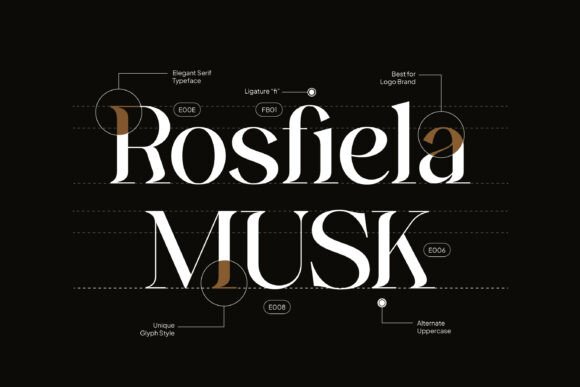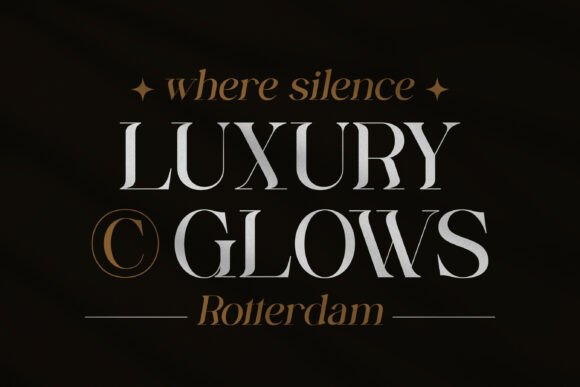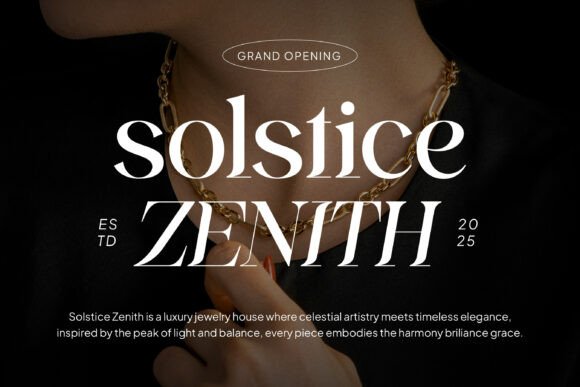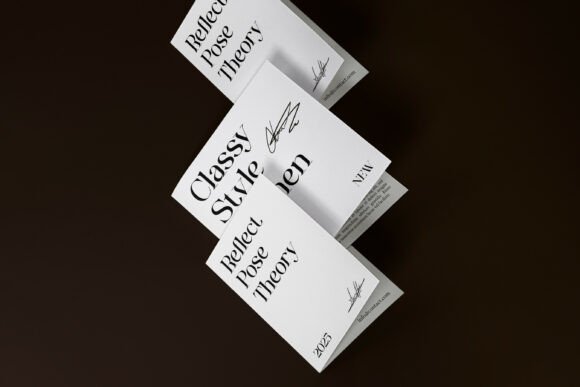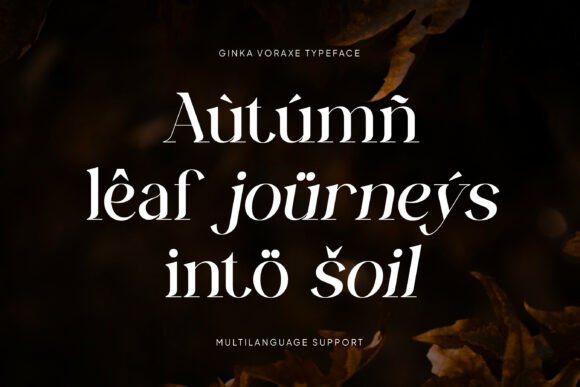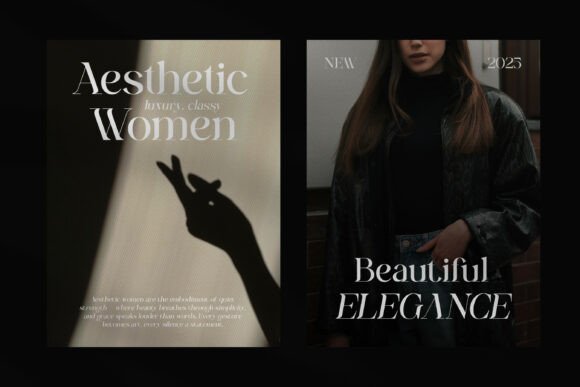
Ginka Voraxe – Elevate Your Design with Modern Stylish Serif
In the world of typography, a font can make all the difference in the aesthetic and effectiveness of a design. For those seeking a blend of luxury, sophistication, and modernity, Ginka Voraxe emerges as a compelling choice. This modern serif typeface is meticulously designed to bring a touch of elegance and boldness to any project, making it an ideal selection for designers and crafters aiming to make a statement.
Ginka Voraxe is distinguished by its high contrast strokes and elegant curves, which together create a timeless yet contemporary feel. This characteristic makes it versatile enough to be used across various design projects, from traditional editorial layouts and packaging to modern branding and high-end fashion projects. The font’s design ensures that it stands out in any medium, be it in print or digital formats.
Variety and Versatility
Understanding the needs of contemporary designers, Ginka Voraxe is offered in two stylish variations: Regular and Italic. This range provides a solid foundation for typographic projects, allowing for a dynamic and engaging visual hierarchy. Furthermore, the inclusion of alternates and ligatures adds a layer of versatility, empowering designers with creative control over their typography. These features enable the customization of text to fit the desired aesthetic, making Ginka Voraxe a flexible tool in the hands of creative professionals.
Application Areas
The elegance and modernity of Ginka Voraxe make it suitable for a wide array of applications. Here are some areas where this font can truly shine:
- Branding: Elevate your brand’s typography with a sophisticated and luxurious feel that captures attention and conveys a sense of high quality.
- Editorial Layouts: Add a touch of elegance to magazines, newspapers, and digital publications, making your content more engaging and readable.
- Packaging: Stand out on store shelves with packaging that boasts refined and contemporary typography.
- High-End Fashion Projects: Perfect for fashion magazines, brand advertisements, and website designs where style and luxury are paramount.
Why Choose Ginka Voraxe?
In a sea of typefaces, Ginka Voraxe manages to carve out a niche for itself with its unique blend of modernity and sophistication. Here are a few reasons why it stands out:
- Timeless Appeal: Its classic serif structure ensures that it remains relevant across different design trends and time.
- High Versatility: With its range of styles and typographic features, Ginka Voraxe can be adapted to various design requirements.
- Elegance and Sophistication: It brings a level of luxury and refinement that can elevate the perceived value of any project.
Ginka Voraxe is more than just a typeface; it’s a design statement. Its modern stylish serif structure, combined with its luxurious feel and versatile features, makes it an excellent choice for designers and crafters looking to imbue their projects with sophistication and elegance. Whether you’re working on a high-end fashion brand, a prestigious editorial piece, or innovative packaging, Ginka Voraxe offers the typographic excellence you need to stand out in a crowded design landscape.
Embrace the blend of modernity and luxury that Ginka Voraxe brings to the table, and watch your designs transform with a refined, contemporary charm that captivates and engages.